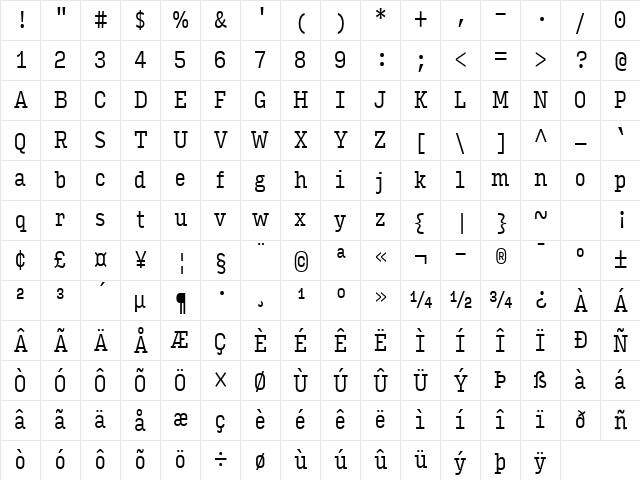
Input Serif Compressed Light
Foundry: David Jonathan Ross and The Font Bureau
Designer: David Jonathan Ross
Design Context for Input Serif Compressed
Input Serif Compressed carries the refined structure of traditional serif typography, with bracketed terminals and considered proportions that communicate credibility and craft. Its slender proportions lend an understated elegance to any composition.